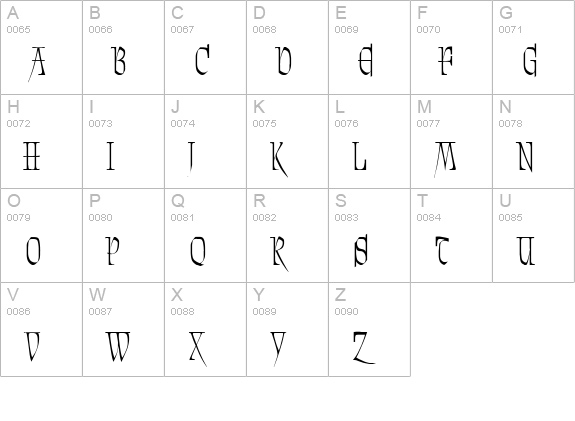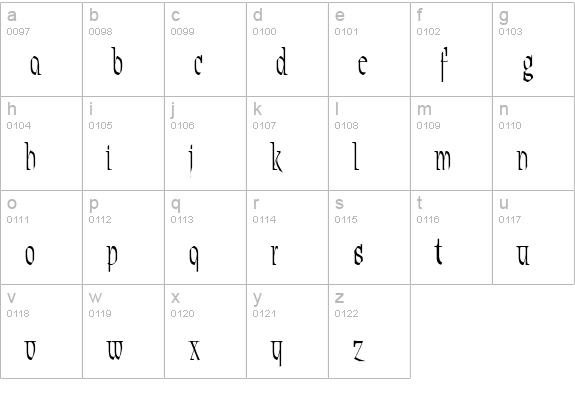
Patrick Narrow2 is a distinctive, condensed-width variant in the Patrick typeface family \xE2\x80\x94 well suited to design and typography projects.
Introducing Patrick Narrow2, a sleek and sophisticated font that exudes a sense of elegance and modernity. This versatile typeface is perfect for a wide range of design projects, from sleek corporate materials to creative branding and everything in between. Patrick Narrow2 is characterized by its clean lines, slender letterforms, and subtle curves, giving it a refined and polished appearance. Its narrow proportions make it ideal for fitting more text into limited spaces without sacrificing legibility or style. But what sets Patrick Narrow2 apart is not just its impeccable design, but also its availability. We are thrilled to offer this extraordinary font free of charge, allowing designers, creators, and enthusiasts alike to access and utilize its remarkable qualities. To download Patrick Narrow2 for free, simply visit FontsMarket.com and discover a world of endless design possibilities. Whether you're working on a personal project, a professional endeavor, or simply exploring your creativity, this font is here to elevate your work to new heights. With Patrick Narrow2, you can effortlessly bring a touch of sophistication and contemporary flair to any design. Whether it's crafting eye-catching headlines, designing captivating logos, or enhancing the visual appeal of your website, this font is a powerful tool at your disposal. So don't miss out on this incredible opportunity to enhance your typography arsenal. Download Patrick Narrow2 today and unlock a world of limitless design potential, all without spending a dime. Embrace the freedom to create, explore, and captivate with this remarkable font, freely available at FontsMarket.com.